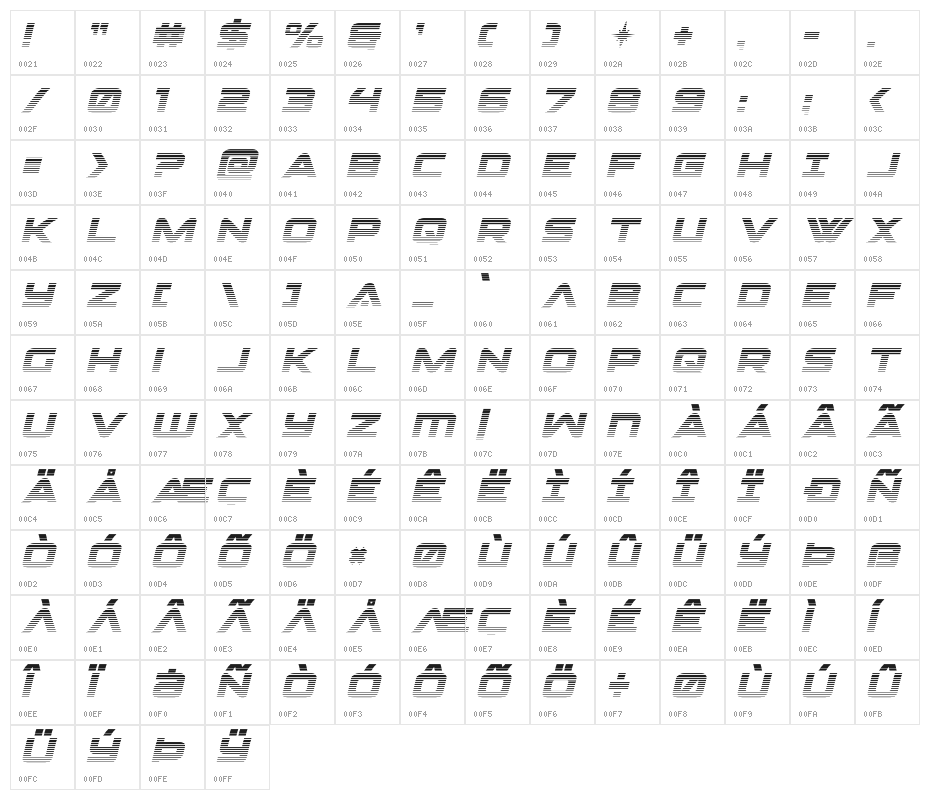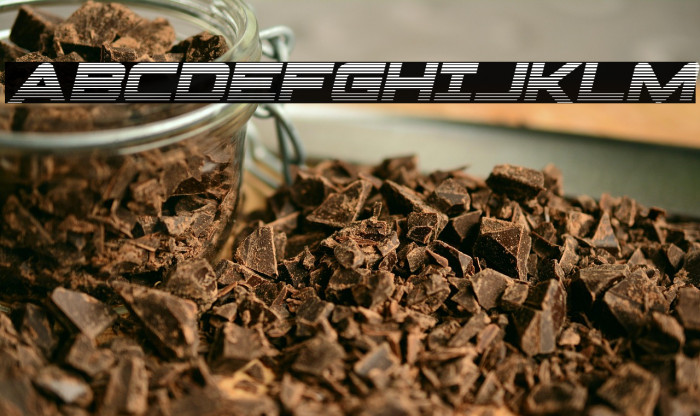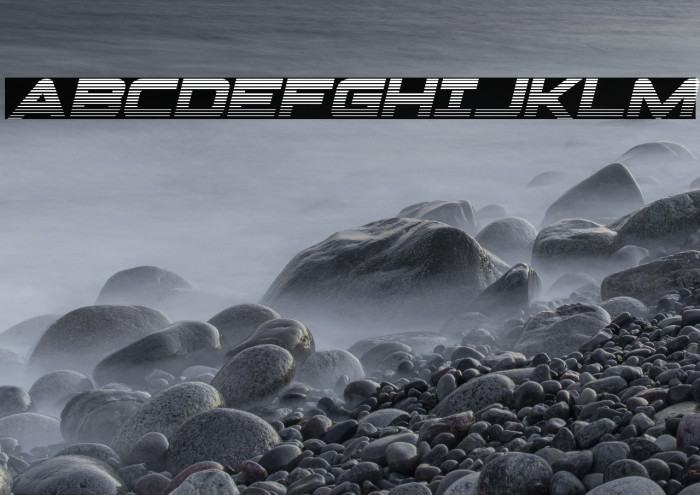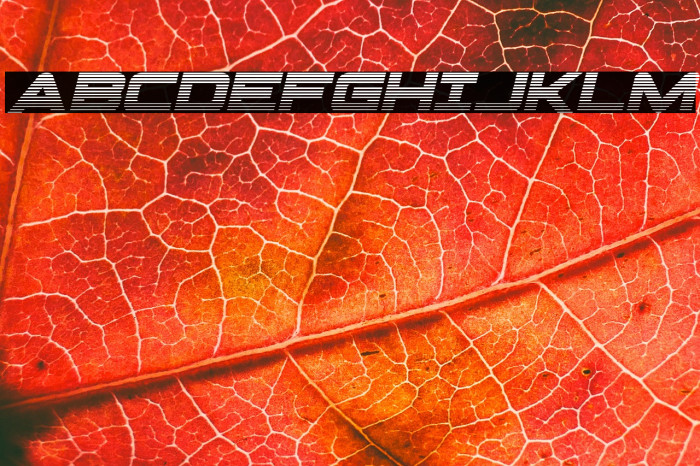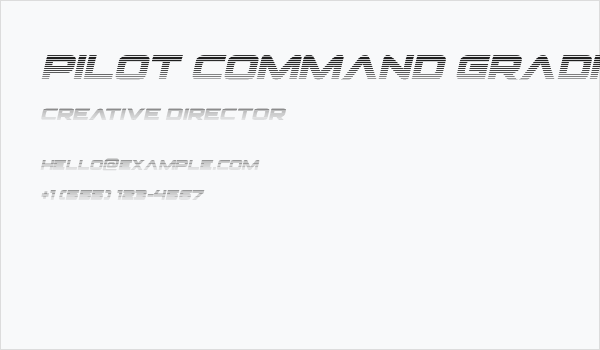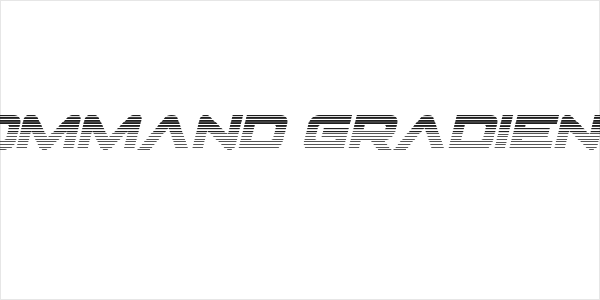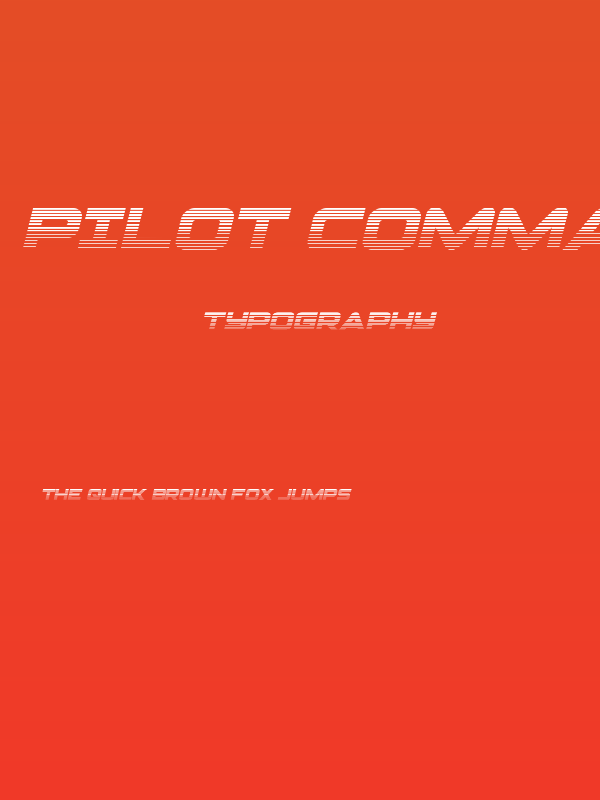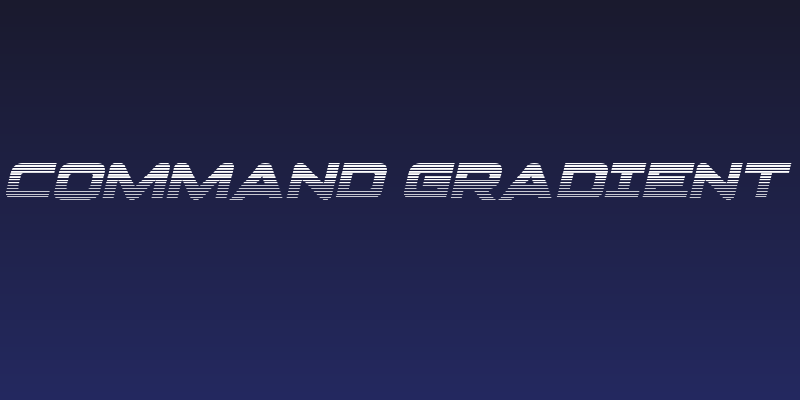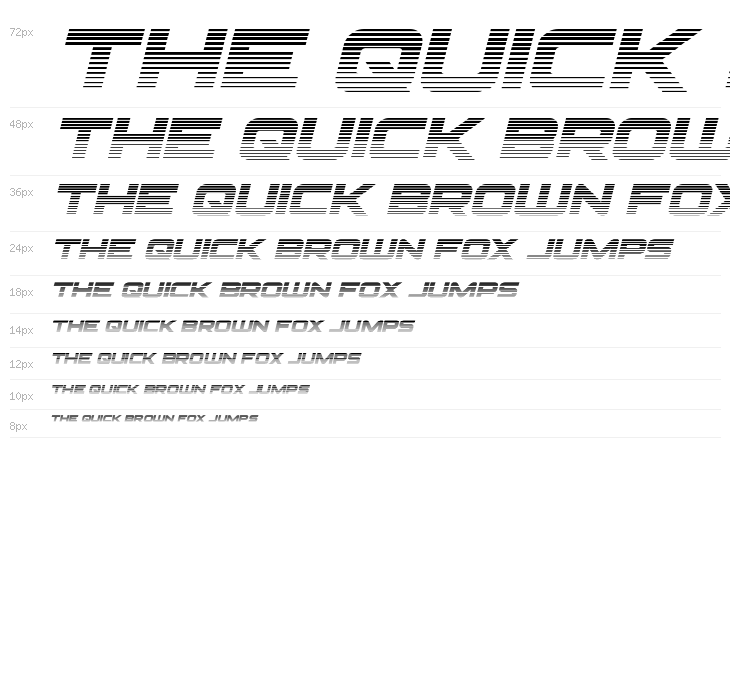
Pilot Command Gradient 2 Ital Font
Pilot Command Gradient 2 Ital Description
This font features a dynamic and futuristic design with a distinct italic slant, giving it a sense of motion and speed. The characters are composed of horizontal lines that create a gradient effect, enhancing the modern and sleek appearance. The uppercase and lowercase letters maintain a consistent style, with sharp angles and clean lines. The numerals and special characters follow the same design principles, ensuring uniformity across all glyphs. This font's unique style makes it stand out, ideal for projects that require a bold and contemporary look.
| Proposed Projects | Ideal for technology branding, sci-fi themed designs, video game titles, and modern advertising campaigns. |